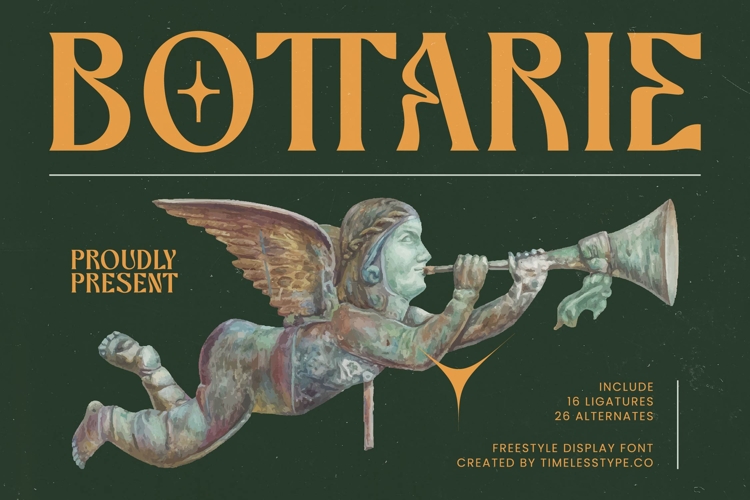
Bottarie - Freestyle Display Font
Elevate your designs with the undeniable charm of Bottarie - Freestyle Display Font, a typeface designed to make a truly unforgettable statement. This font masterfully blends classic elegance with a free-spirited artistic flair, featuring distinctive letterforms and a bold presence that captures attention. Its unique personality shines through every character, perfect for projects demanding a touch of vintage sophistication and modern appeal.
Unlock unparalleled creative potential with Bottarie - Freestyle Display Font. Boasting an impressive collection of 16 ligatures and 26 alternates, this font offers extraordinary customization options. Designers can effortlessly craft unique typographic compositions, ensuring every headline and logo possesses a bespoke, handcrafted feel. This rich feature set provides the flexibility to achieve truly expressive and original designs.
Expand your reach and connect with diverse audiences globally. With its extensive multilingual support, Bottarie - Freestyle Display Font adapts seamlessly across global markets, making it incredibly versatile for international projects. This crucial adaptability transforms Bottarie - Freestyle Display Font into a powerful tool for global branding initiatives, ensuring your message resonates worldwide with consistent style and grace.